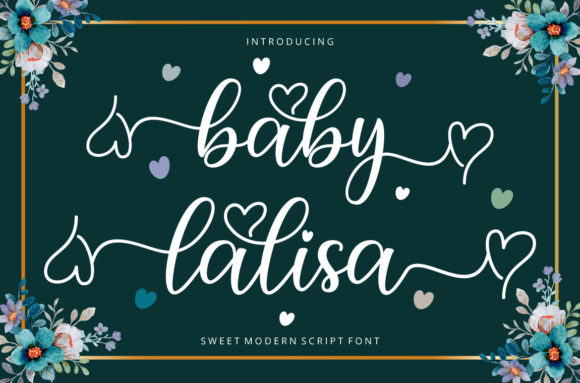
Behold, Baby Lalisa Font, an exquisite dance of letters that will captivate your heart and elevate your designs to new heights. Its meticulously crafted curves and refined edges embody the very essence of elegance, bestowing upon your creations a timeless allure that will resonate for generations. Let Baby Lalisa Font be the radiant centerpiece of your wedding invitations, adding a touch of enchanting charm to this momentous occasion. Its delicate strokes and harmonious flow will eloquently express the love and joy that fills your heart. Transport your audience to a realm of sophistication with Baby Lalisa Font, the perfect companion for your creative endeavors. Whether you're crafting logos, branding materials, or simply seeking to add a touch of grace to your personal projects, this font will effortlessly elevate your work and leave a lasting impression.
Dive into a world of creative possibilities with Baby Lalisa Font, a script font that seamlessly blends tradition with a modern twist. Its versatility knows no bounds, lending itself effortlessly to a myriad of design projects. Whether you're a seasoned designer or embarking on a new creative journey, Baby Lalisa Font will be your trusted companion, guiding you towards captivating designs that leave an indelible mark. Unleash your imagination and let Baby Lalisa Font orchestrate a symphony of beauty, where each letter dances across the page with grace and poise.
Experience the artistry of Cut Story, the creative mind behind Baby Lalisa Font. With an unwavering dedication to excellence, Cut Story has poured their heart and soul into crafting this masterpiece, ensuring that every curve and stroke exudes perfection. Their passion for typography shines through in every detail, promising a font that will transform your projects into breathtaking works of art. Let Baby Lalisa Font be your muse, inspiring you to create designs that ignite emotions and leave an enduring legacy.